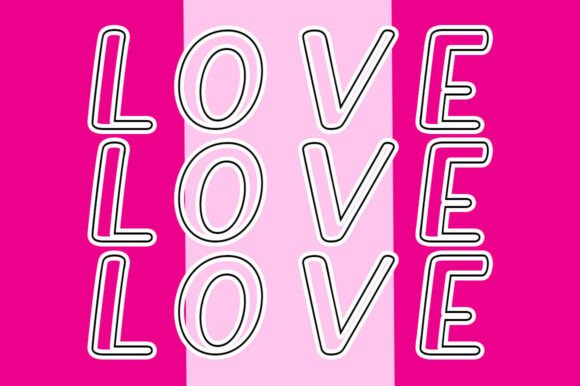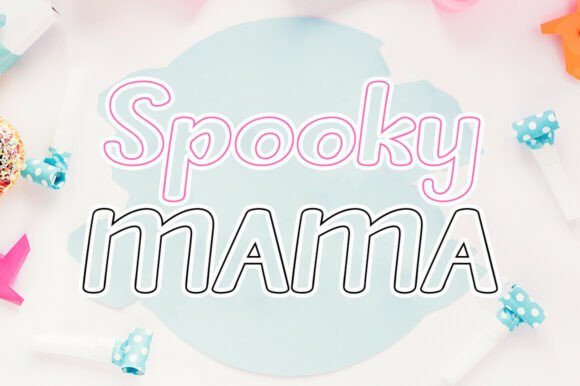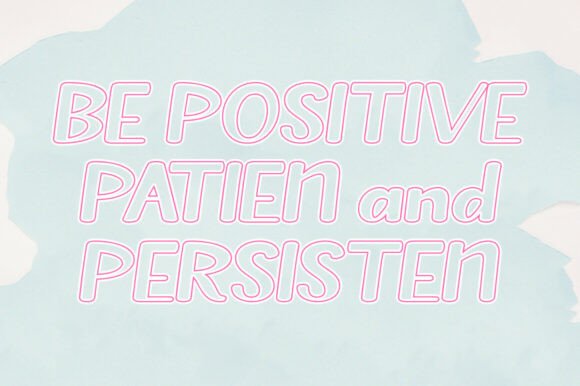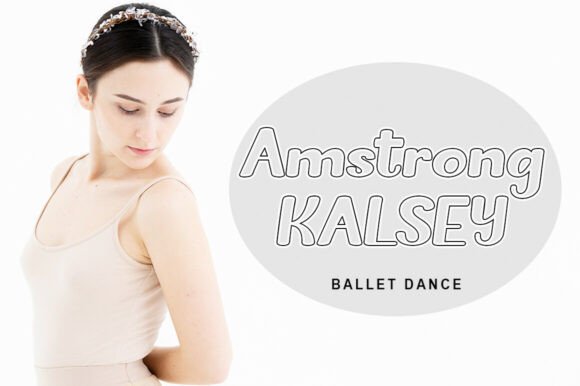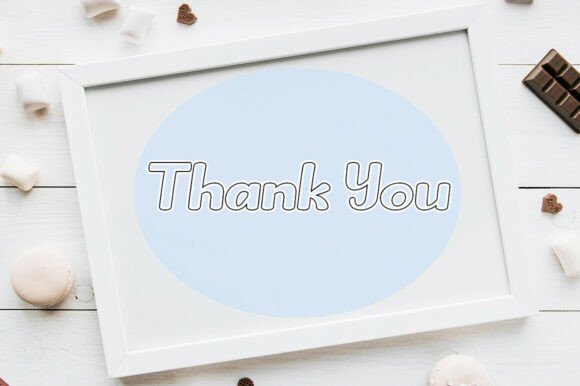
Introduction to Sample Handmade Outline Font
Sample Handmade Outline is a sweet and cursive handwritten font.
This gentle font will look gorgeous on a variety of design ideas It will add a joyful and romantic touch to each of your projects.
Key Features of Sample Handmade Outline Font